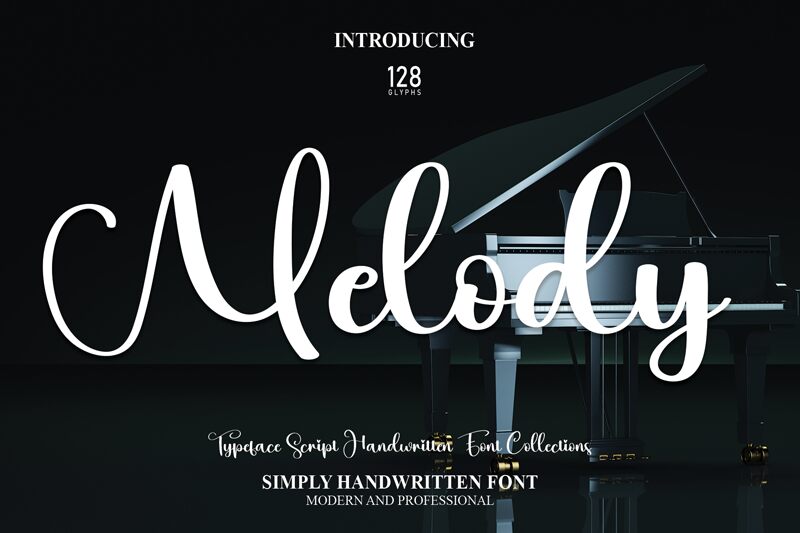
Melody
Melody, designed by scratchones, is a mesmerizing calligraphy font that adds elegance and grace to any project. With its semi-light weight, this font effortlessly captures attention while maintaining readability. Perfect for wedding invitations, luxury branding, and fashion editorials, Melody elevates any design with its flowing strokes and delicate curves. Whether you're creating a romantic logo or designing stunning prints, this versatile calligraphy font brings sophistication and charm to every project. Let Melody's graceful aesthetics harmonize with your creativity and create enchanting designs that leave a lasting impression.
the latest style letters are perfect for wall displays, wedding invitations, social media post logos, advertisements, product packaging, product designs, labels, photography, watermarks, invitations, stationery, and any project that requires taste handwriting.